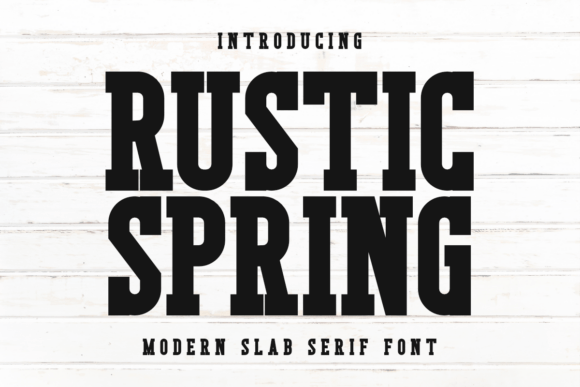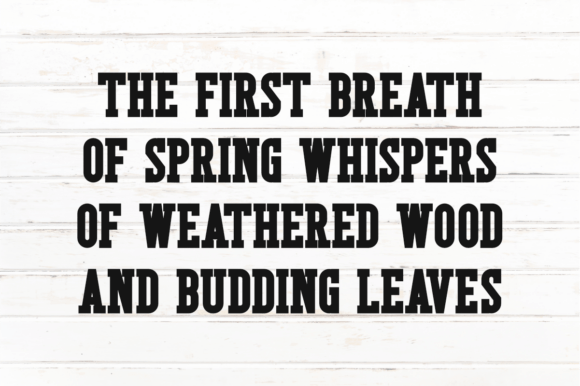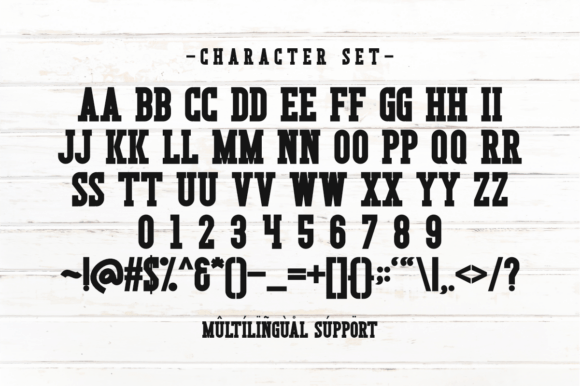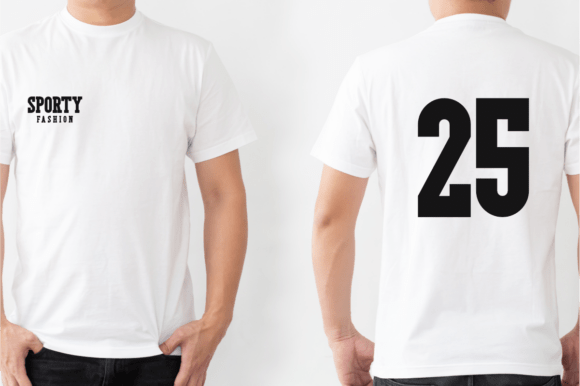
Rustic Spring Font: Bold Slab Serif for Vintage Logo Design
About the Rustic Spring Font
The Rustic Spring Font is here to transform your projects with its distinctive character and style. Rustic Spring is a modern slab serif font that blends a rustic charm with a contemporary feel. Its bold, slightly distressed letterforms evoke a sense of handcrafted quality and vintage appeal, while maintaining a clean and legible structure. This typeface is perfect for designs seeking a warm, earthy, and approachable aesthetic with a touch of modern simplicity.
Rustic Spring excels in headlines, logos, and short-form text for projects requiring a vintage yet approachable feel. It works particularly well for branding within the food, beverage, or craft industries, as well as on packaging and posters emphasizing a handcrafted aesthetic. Avoid using it for large blocks of body text or UI elements where high readability is paramount; its bolder weight and slightly distressed texture can hinder legibility at smaller sizes.
Pairing Rustic Spring with a clean sans-serif like Montserrat or Open Sans provides a strong contrast, balancing its rustic charm with modern clarity. For a more playful feel, consider pairing it with a script font such as Great Vibes, while a geometric sans-serif like Futura can add a touch of sophistication.
The font’s overall personality is best described as friendly, approachable, and slightly nostalgic, lending itself to projects that need a warm, inviting tone without sacrificing modern appeal.
Rustic Spring Font Usage Examples
Rustic Spring Font Example